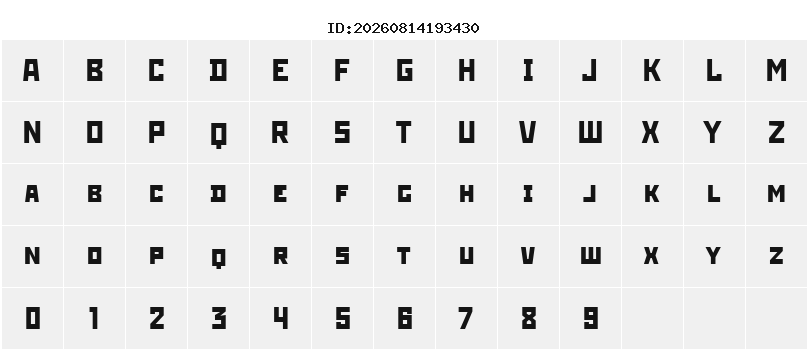
• Font Name: StenbergITC TT
• Font ID: ITC Stenberg
• Full Font Name: StenbergITC TT
• PostScript Name: StenbergITCTT
About StenbergITC TT.ttf
StenbergITC TT.ttf is a modern, elegant sans-serif font designed for ultimate readability and visual harmony. Perfect for branding, headlines, web design, and print materials.